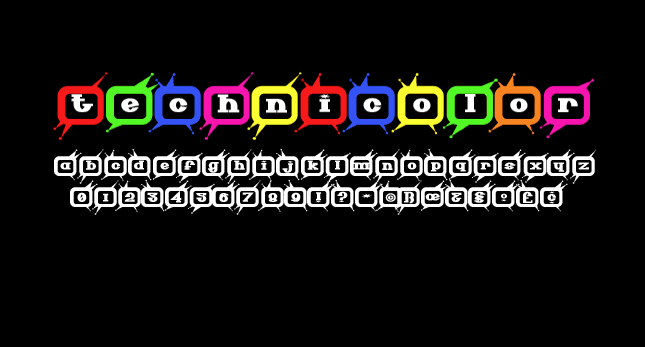
Here is another 1950's'ish font for you to play with. It has most of the international characters as well, but not the math ones. When I made this font, I was thinking that scientists probably would not want to use such a fashionable font for serious stuff that involves math symbols. So I left 'em out. Have fun with this li'l puppy.